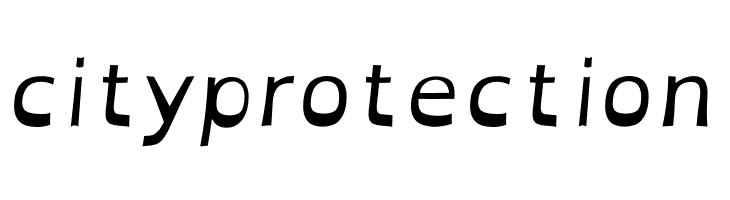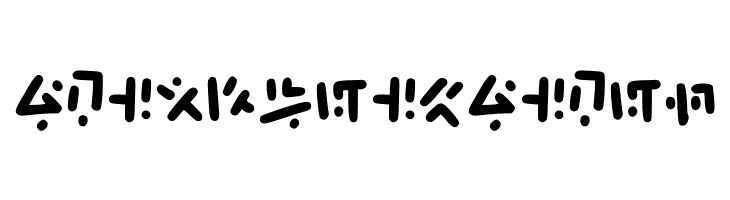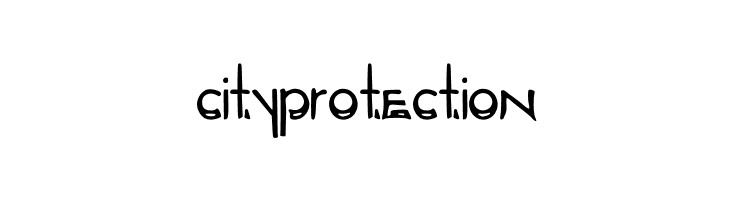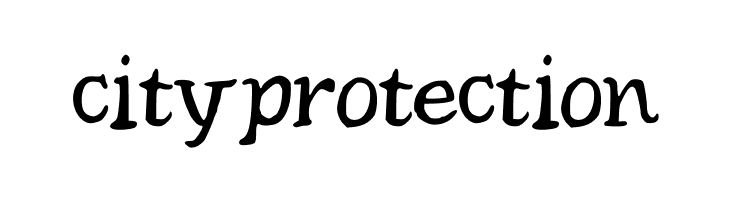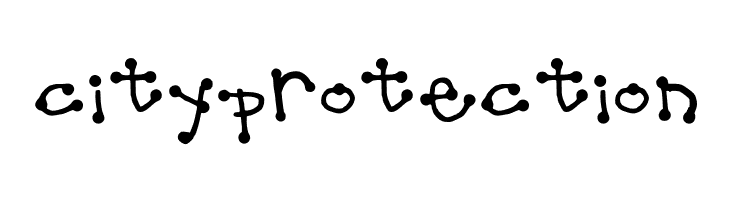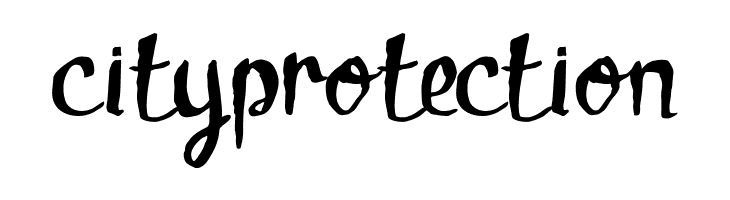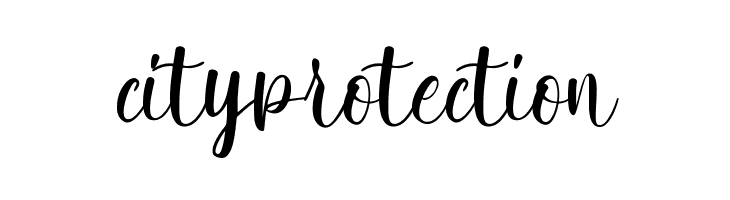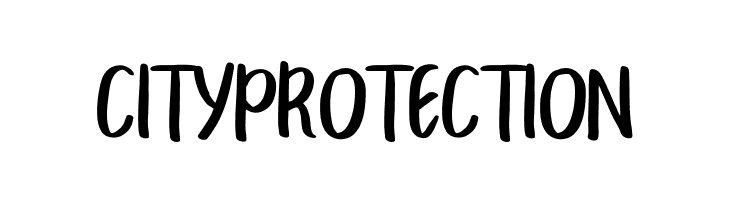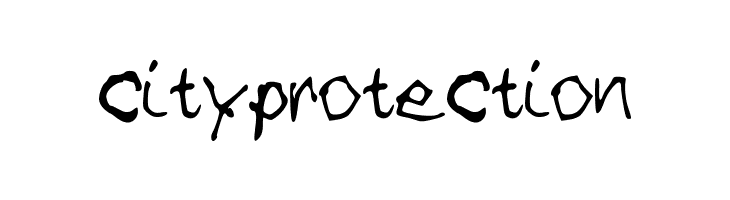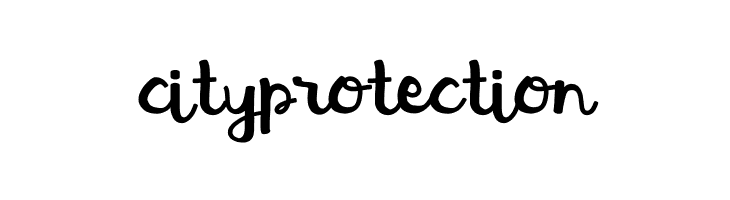
( Abelardo Gonzalez - abbiecod.es )
An accessible, italic font with distinct, weighted letterforms for enhanced readability.
( Arlee Draw - arleedraw.tumblr.com/ )
A bold, abstract font with geometric shapes and a modern, artistic style.
( Barry Stock )
A playful, hand-drawn font with quirky, irregular shapes.
( Becka Schuelke - be.net/becka )
A playful, hand-drawn font with varied stroke thickness and a whimsical style.
( Cheryl Killian - www.whimsicalinklings.com )
A playful, dotted font with a whimsical, hand-drawn style.
( Creative Media Lab - creativemedialab.net )
A playful, hand-drawn font with a whimsical and dynamic style.
( Creatype Studio - Rian Rahardi - creativemarket.com/creatype )
A lively, expressive script font with a handwritten, artistic style.
( Eldertype Studio - creativemarket.com/eldertype )
A playful, bold handwritten font with smooth, rounded edges and a casual style.
( FancyFrenzy - Francy van Lierop )
A playful, irregular handwritten font with a whimsical and informal style.
( Graphicfresh - graphicfresh.com/ )
A bold, brush-style font with a playful, handwritten look.
( Grizel Hernandez )
A playful, hand-drawn font with characters featuring whimsical faces.
( Hamelton Media - James Hamelton Jr - www.hameltonmedia.com )
A playful, handwritten font with a casual and approachable style.
( Here Be Monsters - monsterswithin.com )
A bold, high-contrast serif font with tall, narrow letterforms and sharp serifs.
( Here Be Monsters - monsterswithin.com )
A distressed, vintage slab serif font with a rugged, weathered look.
( Here Be Monsters - monsterswithin.com )
A bold, vintage-style font with tall, narrow letters and unique diagonal hatching.
( Ingeborg Vriends - www.inkies.nl )
A distressed, hand-drawn font with irregular edges and an artistic flair.
( Irina ModBlackmoon - modblackmoon.com/ )
A thorny, jagged font with a dark, edgy aesthetic.
( JBFoundry - Jean Boyault - jean.boyault.pagesperso-orange.fr/ )
A modern decorative font with elegant curves and playful loops.
( JBFoundry - Jean Boyault - jean.boyault.pagesperso-orange.fr/ )
A light, handwritten font with thin, flowing strokes and a casual elegance.
( Janice Law - www.littlemiso.com )
A bold, handwritten font with a lively and personal style.
( Jay Mann )
A playful, hand-drawn outline font with quirky, rotated characters.
( Jecko Development - www.jeckodevelopment.com/ )
A bold, organic font with wavy, hand-drawn edges and a whimsical style.
( Kreativ Font - Andrei O. - www.kreativfont.com )
A playful, handwritten font with smooth curves and a whimsical style.
( LingDong Huang )
Monochrome pixel art illustrations of firearms in a retro digital style.
( Léon Bli - leonbli.com/ )
A hand-drawn, textured font with a playful and expressive style.
( Mai Xiong )
A lively and dynamic handwritten font with fluid strokes.
( Maimoua Da Panda Hoang - seokyaryhyun.tumblr.com/ )
A playful, handwritten font with bold, rounded characters.
( Malvolio )
A playful, crayon-like font with a hand-drawn, textured appearance.
( Myles Hamilton - unimpulsive.com/ )
A playful, handwritten font with a casual and whimsical style.
( Nerdle Pants )
A whimsical, hand-drawn font with a playful and irregular style.
( Ohab Tbj )
A playful, bold font with zigzag edges and rounded characters.
( Ohab Tbj )
A sketch-like, hand-drawn font with overlapping strokes and a playful style.
( One Design - Toni Setiawan - one-graphics.blogspot.com )
A playful, artistic font blending script and sans-serif elements.
( Patricio Zambra )
A bold, textured font with a distressed, hand-drawn style.
( Pisto Casero - Gilberto Moya Perona - www.pistocasero.com )
A playful dashed line font with a casual and creative style.